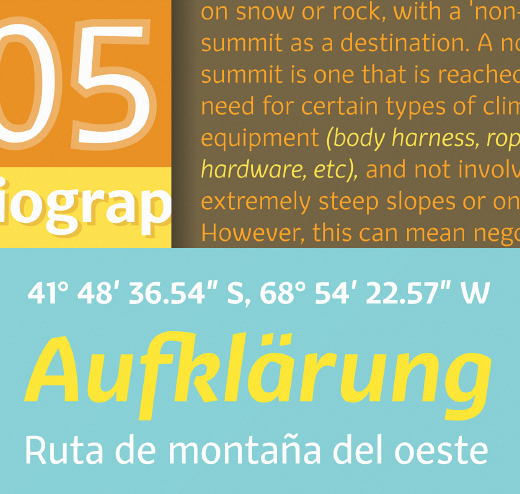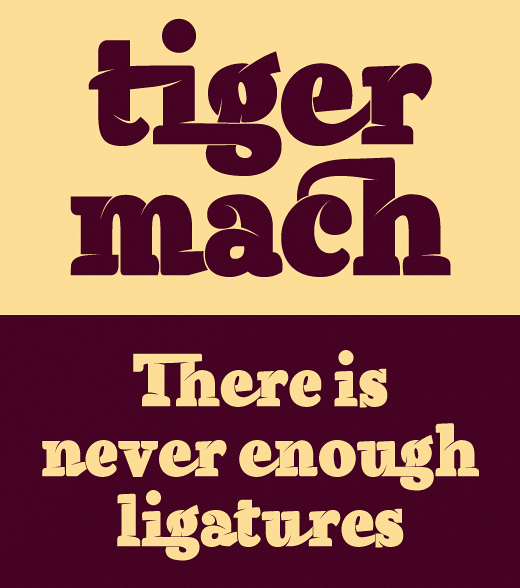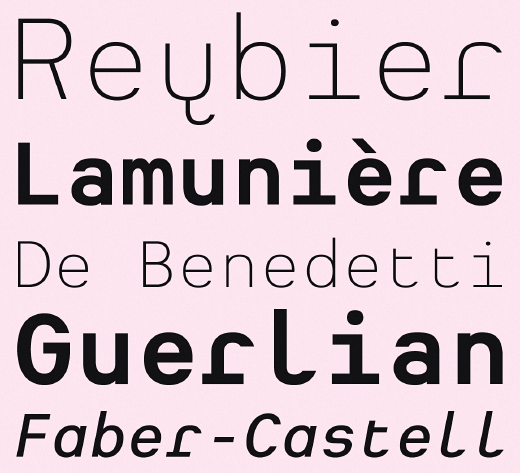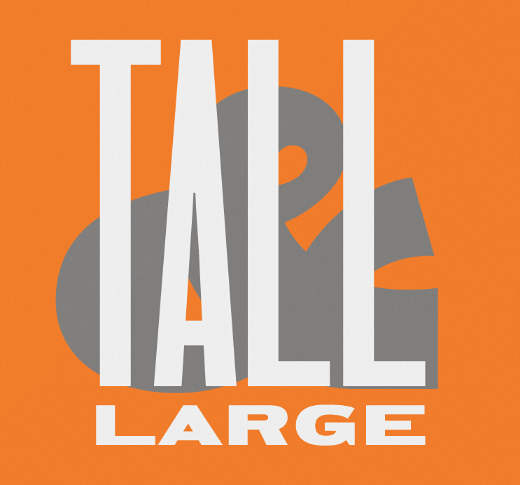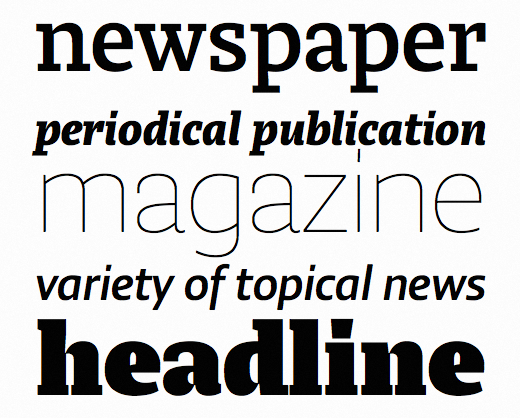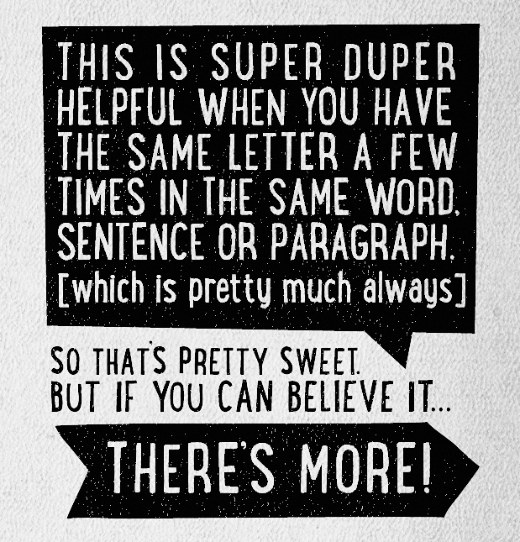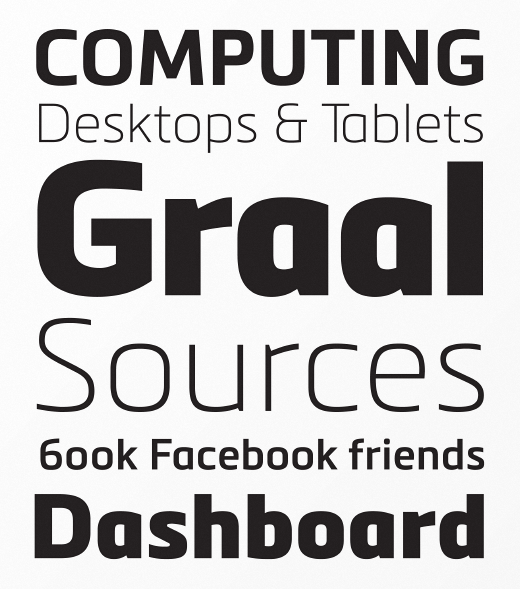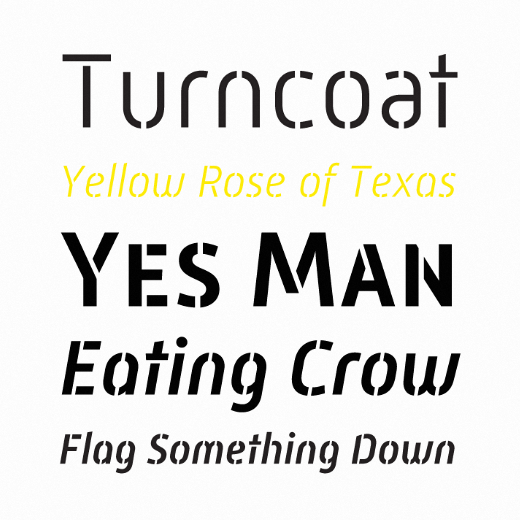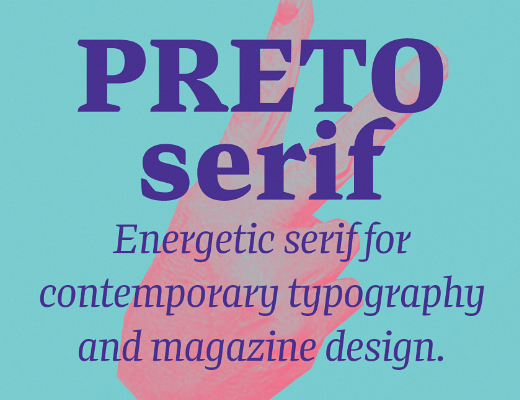
The 24 most beautiful typefaces released last month
Anyone who’s tried their hand at designing a typeface will know it’s a wildly difficult process, and to actually come out at the end with something attractive takes an extreme amount of skill and patience.
Type design may not be for everyone, but typography is, and nearly every designer works with it daily. This is why Type Release creator Sean Mitchell is here to share with you a list of 24 gorgeous typefaces, all of which were released last month. See his findings, only on TNW:
Sudtipos: Esmeralda Pro
Delicate yet solid curves, serifs and endings give each composition a fine, elegant and exquisite feeling, along with a firm and sturdy look.
Hold Fast Foundry: Gin
Inspired by the likes of old serifs and classic bottles of whiskey and gin.
DSType: Diversadiversa
A single typeface with 9 fonts within, containing 2760 glyphs, divided into 9 stylistic sets.
Typotheque: The Lumin Familylumin
The Lumin family includes slab-serif, sans serif, condensed and display typefaces, all of which play with the idea of contradiction.
Fontfabric: Nexa Slabnexa-slab
Draws from the rich traditions of the classic Neo-Grotesque slab serifs.
Atlas Font Foundry: Heimat Monoheimat-mono
Combines an idiosyncratic appearance with the feeling of a grid-based letter construction of the late 20s.
FontFont: FF Doradora
Based on a detailed study of today’s handwriting styles, the main focus was on transforming handwritten shapes into a serif text typeface, not a script face.
Laura Worthington: Harleanharlean
Not your typical script font, she’s quirky, brazen and a bit irreverent.
FaceType: Substancesubstance
Fulfills the primary role of emphasizing content.
FDI: Canapécanape
A warm and friendly, almost haptical appearance which brings some cosiness to your communication with type.
Kimmy Design: Lunch Boxlunch-box
Gives infinite customizable options and a fully authentic look.
The Northern Block: Nubernuber
A linear geometric sans serif influenced by neo-grotesques and the early Swiss type foundries.
The Northern Block: Tabiatabia
Inspired by the work and principles of the iconic german industrial designer Dieter Rams.
Mostardesign: Mettro Promettro
A sans-serif with a technological and minimalist look.
Mint Type: Espuma Proespuma
A soft and friendly humanist sans with strong calligraphic aftertaste.
District: Fair Sans Textfair-sans-text
The natural follow-up to the popular Fair Sans now a text family based on the calligraphic structure and casual construction of its predecessor.
Hipopotam Studio: Mr Alexmr-alex
A clean & elegant display sans.
Hipopotam Studio: Mr Luckymr-lucky
A hand-drawn layered typeface.
Nootype: Fitigraffitigraf
A mix between a classical serif font and graffiti street art.
Hamilton Wood Type Foundry: HWT Unit Gothichwt-unit-gothic
The Unit Gothic series was released by Hamilton Manufacturing Co. in 1907. This HWT release is the first ever digital version of these fonts.
Moretype: Mic 32 New Stencilmic-32-new-stencil
Provides an industrial flavour to the futuristic rounded geometry of Mic 32 New.
DizajnDesign: Preto Serifpreto-serif
Explores the function of serifs on readability and legibility.
ShinnType: Richlerrichler
An open, evenly spaced book face.
Insigne: Quarcaquarca
Masculine power runs strong across the page with bold self-assurance and a raw energy that courses through its thick veins.